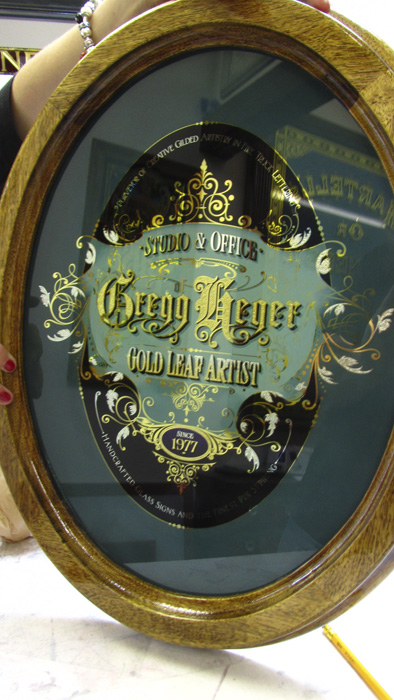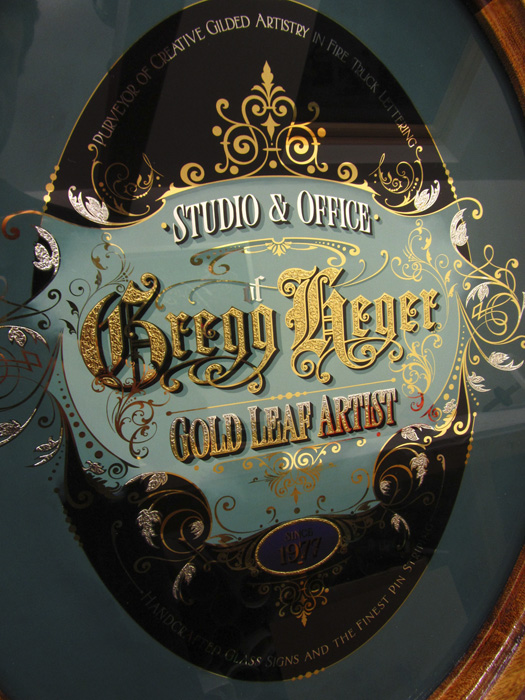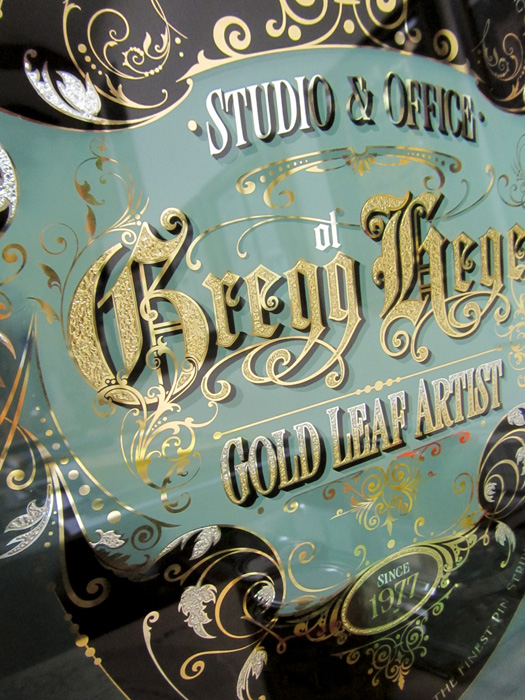
Glass Sign Gregg Heger
I'm lucky enough to be visiting with my good friend Gregg Heger tommorrow in Boston, Mass for 1 week. We planned a trip up to see Doug Bernhardt and also to see on the way up Noella at Sign-It. Jeff Lang and Gary Godby are joining us both which should be a good few days of catching up with friends... . Were Planning on a small gold workshop the first two days and then set for a long drive to Canada. Gregg came here in 2006 and brought with him a nice little metal hand painted sign for me as a gift, this past week I made him a sign for his office studio wall. Told him not to look on the forum before I get over there. he promised he would not........
Outstanding sign, once again... You sure fit a lot into a day!
Another masterpiece. What else is there to say?
Your profuse design talents absolutely floor me!! And then there's the perfection in execution- SPOT ON!
Wow Dave, just beautiful. Love those colors too... Dang!
It's another beaut!
"Another masterpiece. What else is there to say?
It would be nice with some step by step pictures so newbies like me, can see how so beautyful signs are made! :)
Mighty fine carving there, you are a talented fella fo-sur. Not too many folks that can push a brush and a chisel as well as you do. More photos please -
What type of wood is that? Does this photo show the carving before or after sanding?
Lyptus, Spanish cedar? . I don't know Doug but that carving is on point!!! Great work fellows!
Hey all....the boys have been and gone. They drank all my beer and emptied the fridge. As to the wood sign "she be" mahogany and quite a bit more than you see there. More later of course but there's very little sanding to be or has been done to it. Carvings always look so good when they are crisp so hardly at all there. The panels and flat areas are sanded down to to about 120 grit though and the background around the Devine's was punched with a steel punch I had made. It's been an ongoing project to find a shape that works well. I'll dig up a few more photos a little later.
Inspiring work. I love looking at anything you lads make. There is always so much going on, but it still always comes together.